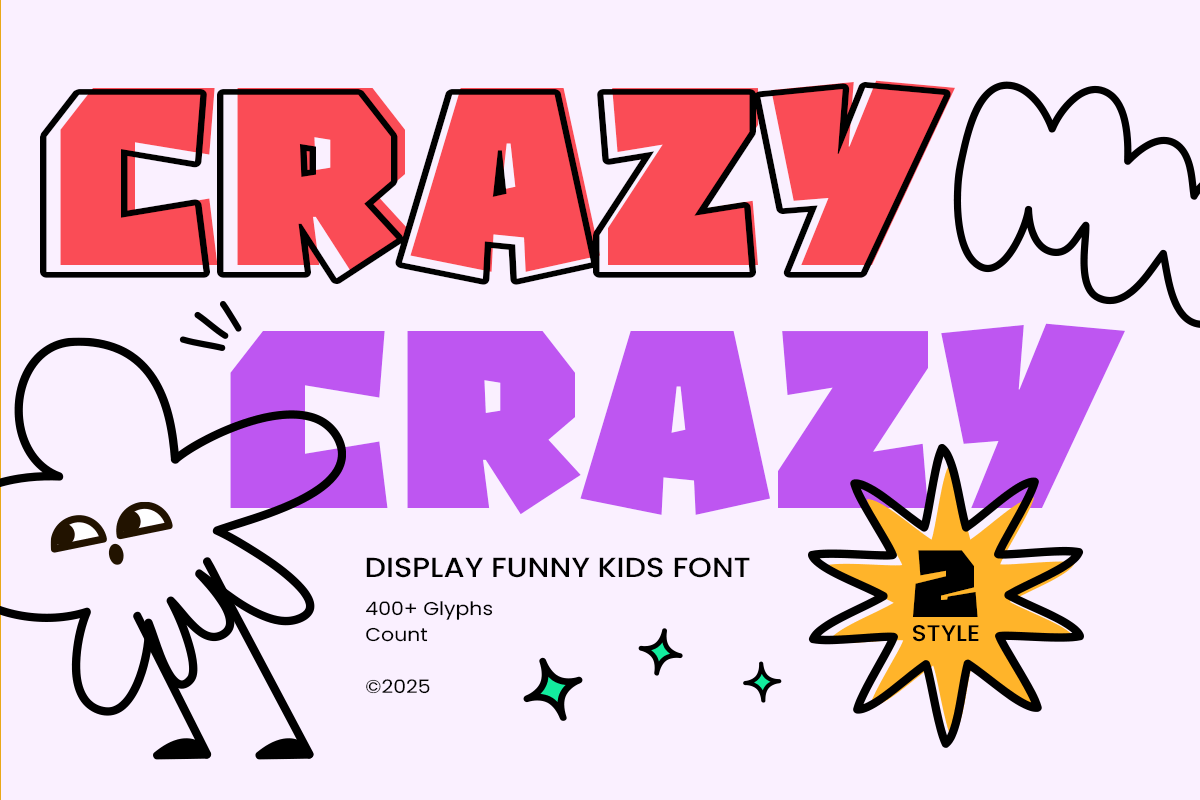
Crazy
-Display Funny Kids Font
Crazy - Display Funny Kids Font
Crazy – Display Funny Kids Font Crazy is a playful and cheerful kids display font designed to bring joy and energy to every project. With its quirky shapes, rounded strokes, and lively character style, Crazy is perfect for children's books, cartoon titles, learning materials, birthday invitations, product packaging, and any design that needs a fun and friendly vibe.
The font’s expressive letterforms make reading enjoyable for kids while adding a memorable visual identity to creative branding. Crazy is crafted to spark imagination and deliver a bright, youthful atmosphere across both print and digital designs.
Crazy – Display Funny Kids Font Features:
• Fun and playful display style for kid-friendly designs
• Ready with 2 fonts: Regular and Bold Version
• Cheerful character forms with rounded, quirky shapes
• Smooth curves and clean outlines for easy readability
• Ideal for storybooks, posters, packaging, and creative branding